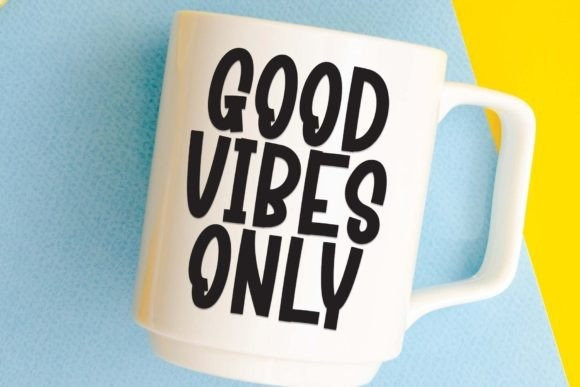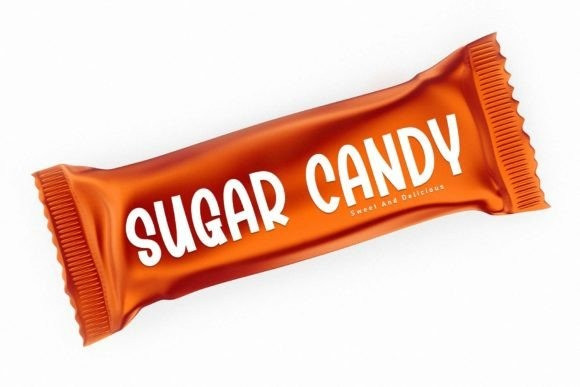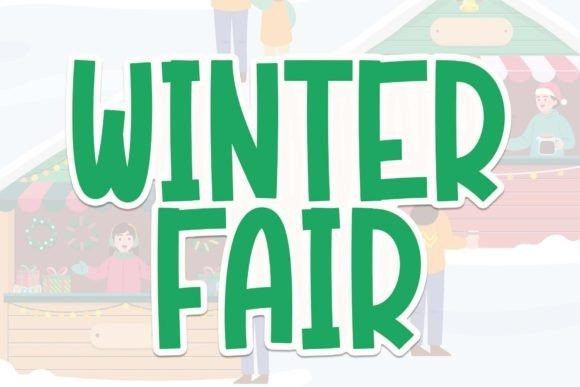
Winter Fair Font
Winter Fair Font is a fun and cute display font. No matter the topic, this font will be an incredible asset to your fonts’ library, as it has the potential to elevate any creation.